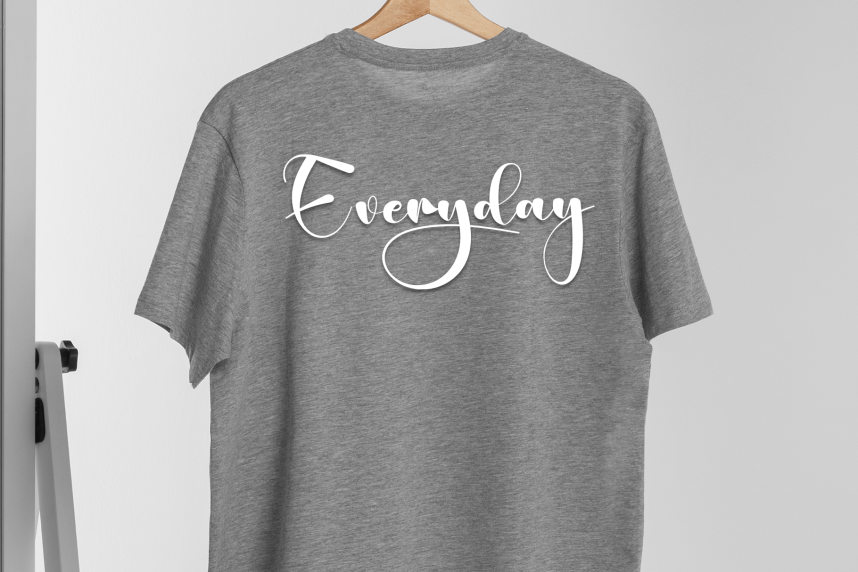
Angels – Elegant Handwritten Font
Angels – Elegant Handwritten Font, special creative products for you, our products will give you an extraordinary experience. the latest style letters are perfect for wall displays, wedding invitations, social media post logos, advertisements, product packaging, product designs, labels, photography, watermarks, invitations, stationery, and any project that requires taste handwriting.